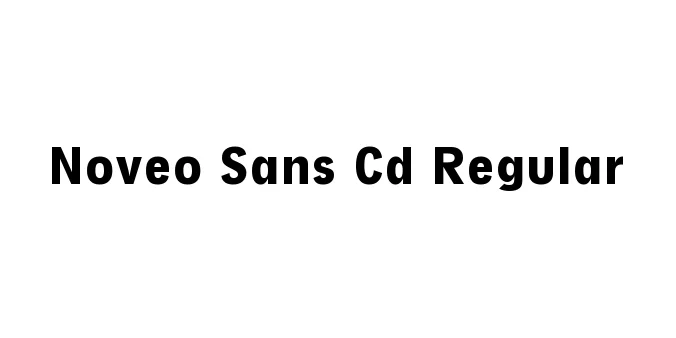
Noveo Sans Cd Regular
Designed by Arwan Sutanto
Noveo Sans Cd Regular is a member of the larger Noveo Sans family, designed by Arwan Sutanto. It is characterized by its condensed proportions and clean, modern aesthetic. This typeface was crafted to provide a neutral yet functional look, making it suitable for high-density information environments where space is at a premium.
The font features high legibility even at smaller sizes, thanks to its balanced x-height and open apertures. Its geometric influence combined with subtle humanistic touches makes it a versatile tool for both digital and print media. It is often utilized in editorial design, corporate identities, and user interfaces that require a sleek, space-saving sans-serif option.
Noveo Sans Cd Regular Best Uses
Perfect for impact-driven titles where horizontal space is limited.
Great for mobile interfaces, sidebars, and dashboard elements.
Suitable for modern branding, minimalist logos, and stationary.
Excellent for magazine layouts, brochures, and dense informational text.